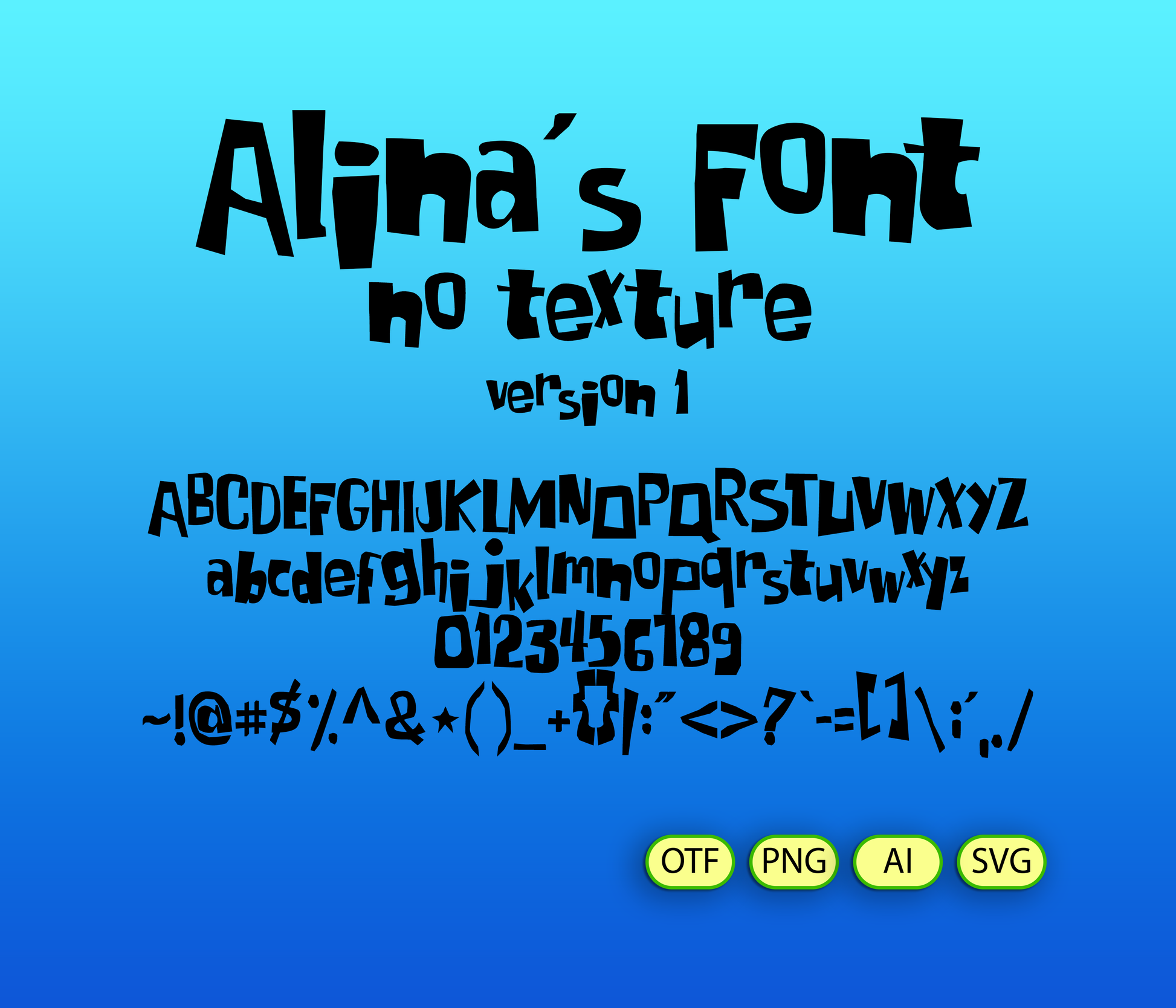
Ocean Bottom Comedy Font
Ocean Bottom Comedy Adventure Style
Dive into the hilarious depths of underwater neighborhoods and aquatic friendship with our Ocean Bottom Comedy Adventure font, capturing the essence of sea-floor shenanigans and bubbly character adventures. Perfect for aquatic comedy creators, underwater world designers, marine humor storytellers, and creative professionals, this font delivers the hilariously optimistic yet endearingly quirky, bubblingly cheerful atmosphere of ocean floor comedy tales to your projects. Craft splash-tastic invitations, underwater comedy merchandise, or digital content with the enthusiastically goofy, oceanically joyful energy of sea-bottom adventure stories.
Our Ocean Bottom Comedy Adventure font features bubbly, wave-inspired letterforms and playfully aquatic characters reflecting the hilariously cheerful yet endearing aesthetic of underwater neighborhood scenarios. Ideal for:
- Aquatic Comedy Events: Design splash-worthy invites, posters, and banners for ocean-themed parties, underwater experiences, and sea-bottom comedy gatherings
- Marine Humor Design: Perfect for book covers, aquatic promotions, and underwater-themed accessories that capture bubbly friendship essence
- Digital Media: Enhance websites, blogs, and social media with bubbly headers and graphics that express oceanic optimism and aquatic humor
- Entertainment Content: Add authentic character to underwater comedy materials, marine adventure designs, and promotional materials for splash-filled events
- Personal Projects: Bring bubbly appeal to scrapbooking, DIY crafts, and home decor inspired by the aesthetics of ocean bottom adventures
Ocean Bottom Comedy Adventure Font Generator